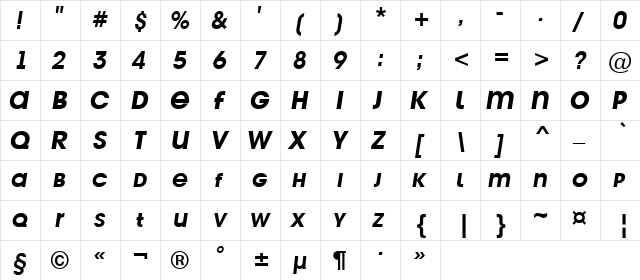
a_AvanteTitlerCpsLC BoldItalic
Design Context for a_AvanteTitlerCpsLC Typeface
a_AvanteTitlerCpsLC offers clean, dependable letterforms without strong stylistic allegiance, making it a practical choice for designers who need flexibility. Its italic angle brings a sense of urgency and motion to the letterforms. Its bold stroke weight gives it real presence on the page.
Pro Tip: Try a_AvanteTitlerCpsLC for annotation and caption copy alongside an upright companion — the contrast in angle creates a dynamic but ordered typographic system.